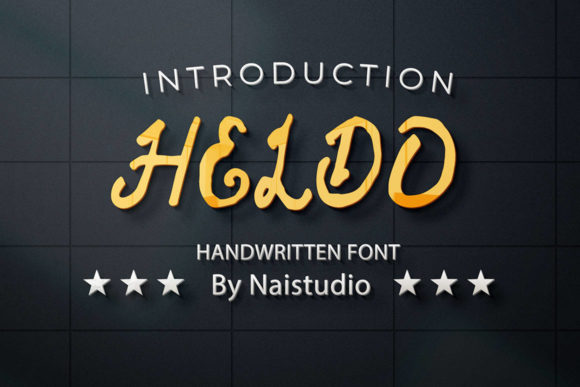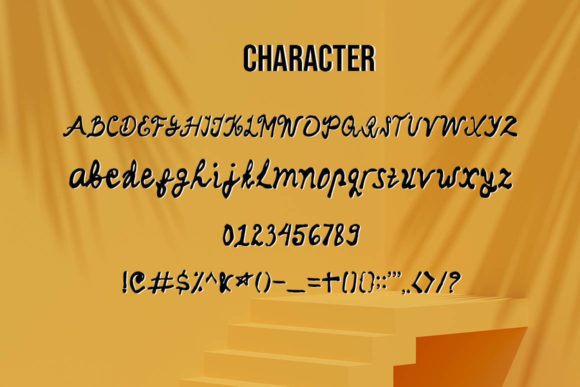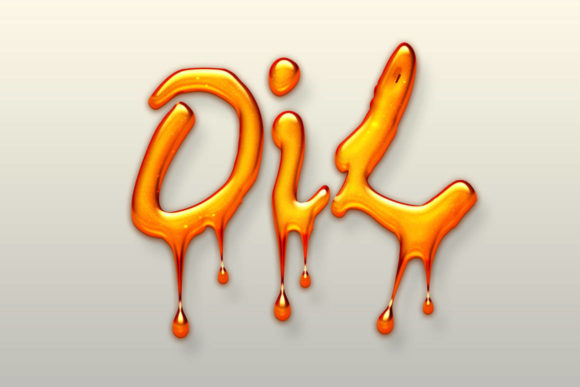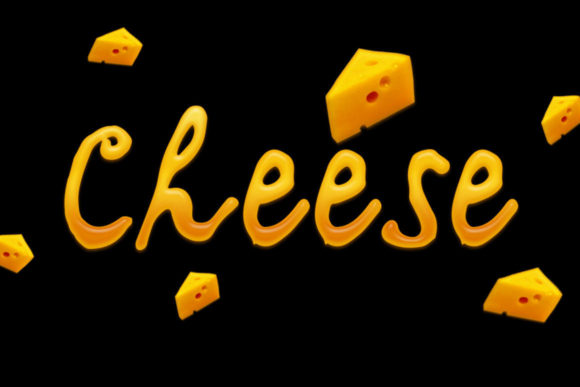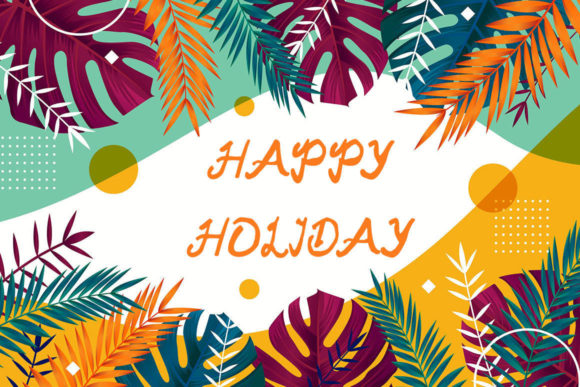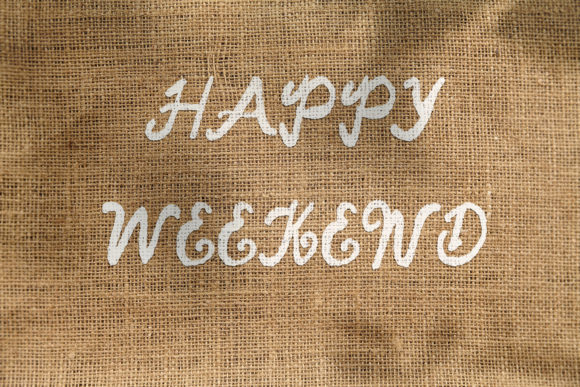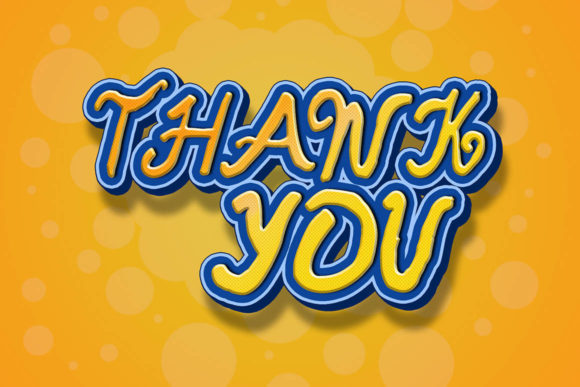
Heldo Font
About Heldo Font
Heldo is an exquisite handwritten font that beautifully blends classic calligraphic influences with a modern and fresh twist. Its elegant and sophisticated appearance makes it a true favorite among designers and creatives. With its versatile style and stunning aesthetics, Heldo can elevate a wide range of design projects to new heights of beauty and artistry. Here are some ways you can use Heldo to enhance your creative endeavors:
1. Wedding Invitations: Create luxurious and romantic wedding invitations that set the tone for an unforgettable celebration.
2. Thank You Cards: Design heartfelt thank you cards with a touch of elegance and charm.
3. Quotes and Typography Art: Use Heldo to craft captivating typography art featuring inspiring quotes and messages.
4. Greeting Cards: Design exquisite greeting cards for various occasions, adding a touch of sophistication and refinement.
5. Branding and Logos: Incorporate Heldo into your brand’s visual identity to add a sense of grace and elegance to your logo and marketing materials.
6. Product Packaging: Apply Heldo in product packaging designs to give your products a premium and artistic look.
7. Editorial Design: Use Heldo in magazine layouts and editorial designs to add a touch of sophistication to the overall design.
8. Social Media Graphics: Create eye-catching social media graphics with Heldo, making your posts stand out with its distinct and elegant appearance.
9. Book Covers: Utilize Heldo for book cover designs, adding a touch of timeless beauty to the cover artwork.
10. Art Prints: Design captivating art prints with Heldo, offering a refined and artistic touch to your artwork.
11. Luxury Branding: Use Heldo to create branding materials for luxury brands, exuding a sense of sophistication and exclusivity.
12. Calligraphy: Employ Heldo for calligraphy projects, such as personalized gifts, certificates, and event signage.
13. Event Invitations: Craft elegant event invitations, like formal galas and celebrations, using Heldo to create a lasting impression.
14. Stationery: Design chic and stylish stationery, including letterheads, envelopes, and business cards, with Heldo.
15. Personal Projects: Embrace Heldo in any personal creative project, whether it’s crafting handmade gifts or decorating your home.
With Heldo as your go-to font, your projects will exude a timeless and sophisticated charm that captures the essence of classic calligraphy with a contemporary flair. Fall in love with Heldo and watch how it transforms your ideas into stunning and memorable creations!